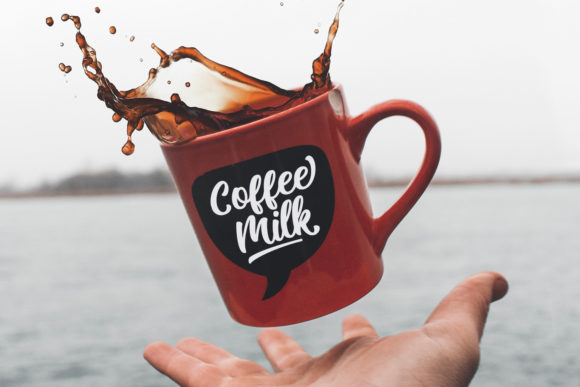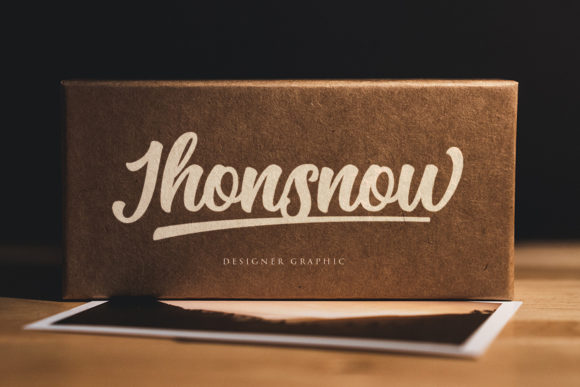
Sainthorn Font
db-ku.com - Script & Handwritten -- Sainthorn is a gorgeous and bold handwritten font, crafted to give your headlines and logotype projects a stylish touch. This font reads as strong, confident, and dynamic and can add tons of nostalgic character to your designs.